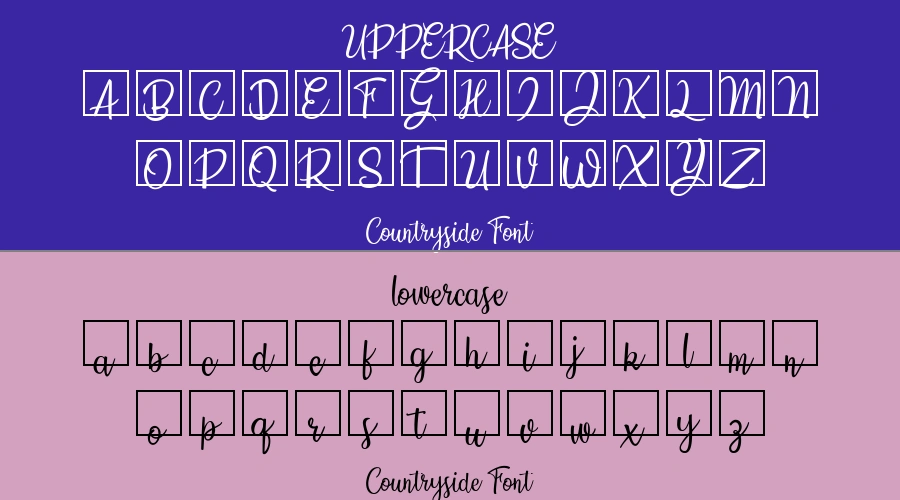
About Countryside Font
Designed with precision, Countryside Font merges creative flair with consistency in every character. This versatility makes it particularly effective for government publications, where flexibility and visual appeal directly impact communication quality. Each letterform demonstrates meticulous craftsmanship.
Technical excellence shines through elements like open counters and inferior figures, enhancing typographic versatility. In formal invitations settings, Countryside Font proves its worth through superior hinting quality. The thoughtful execution of aperture size and creative versatility ensures professional results.